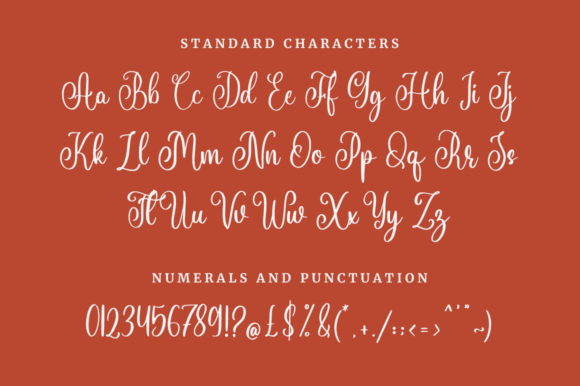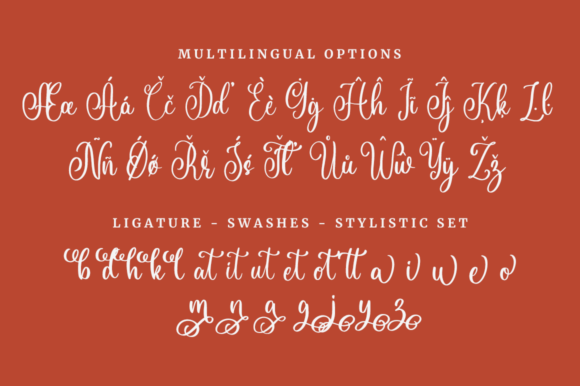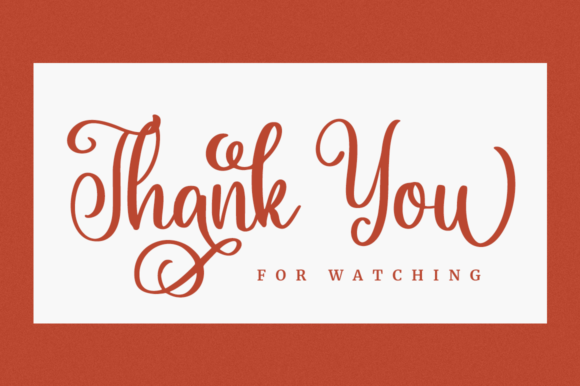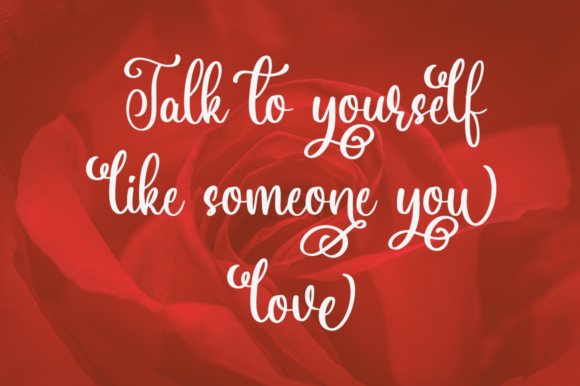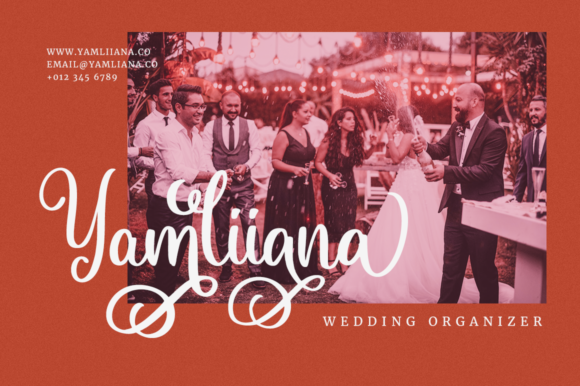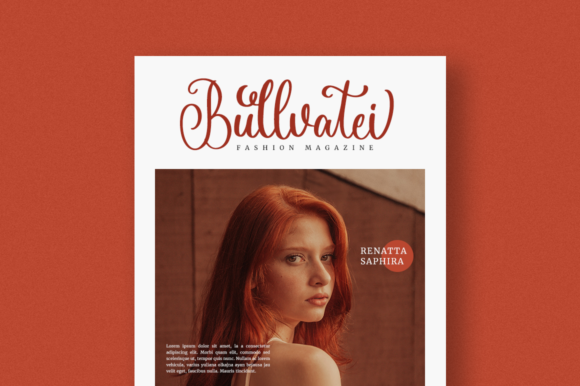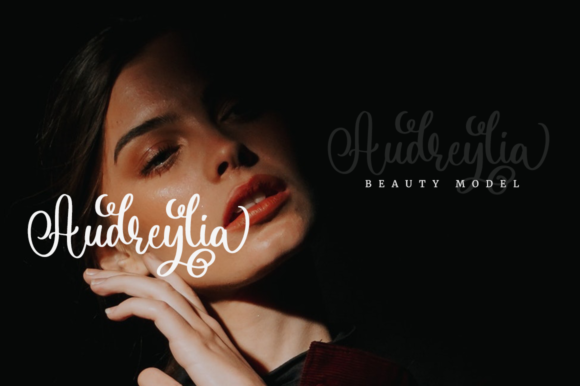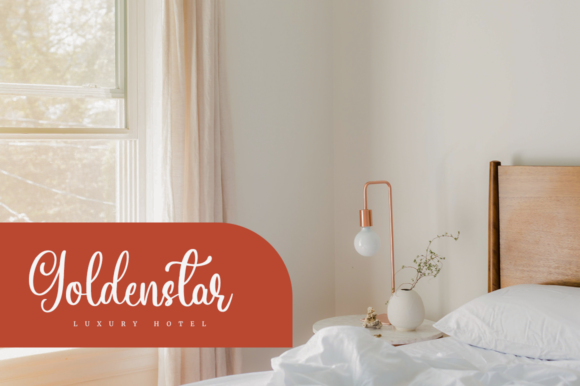
About Genotesia Font
Genotesia simplifies elegance into one simple font, inspired by timeless classic calligraphy. Not too thin and not too thick, balanced and varied, this font was designed to enhance the beauty of your projects.